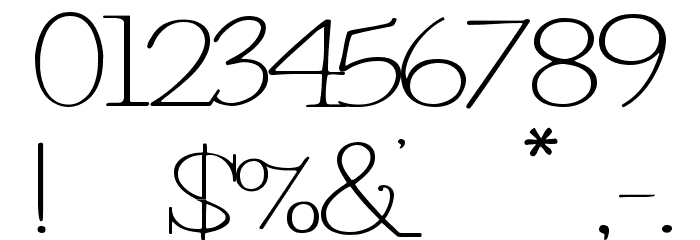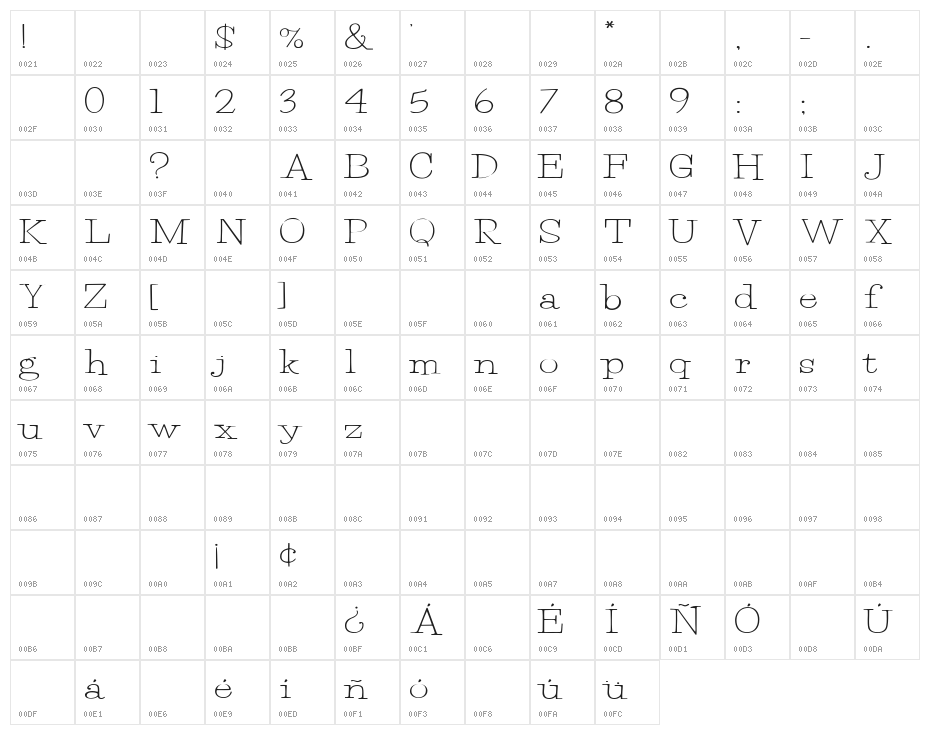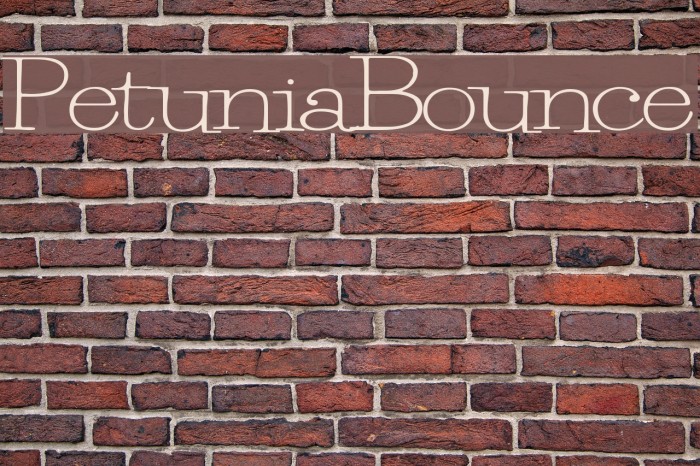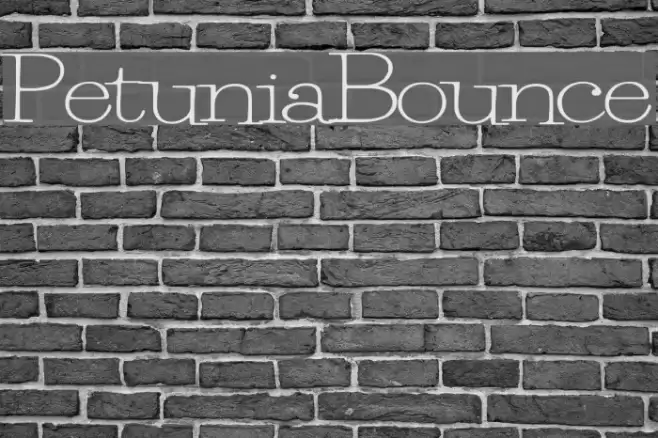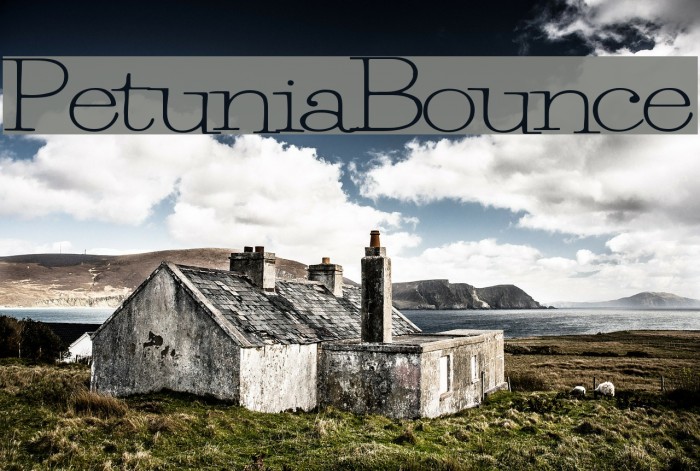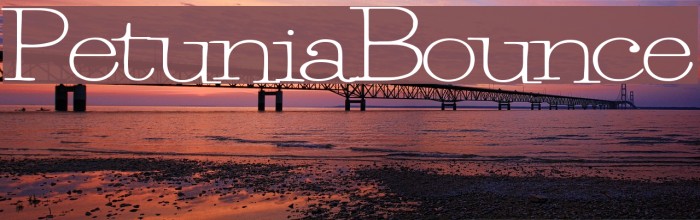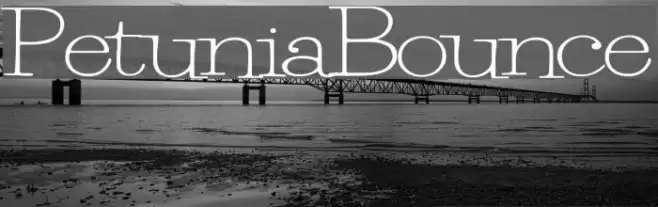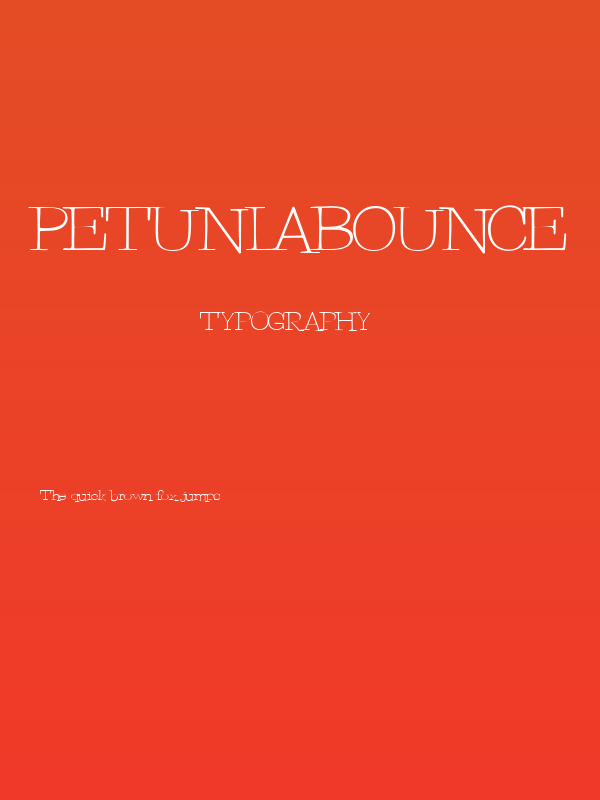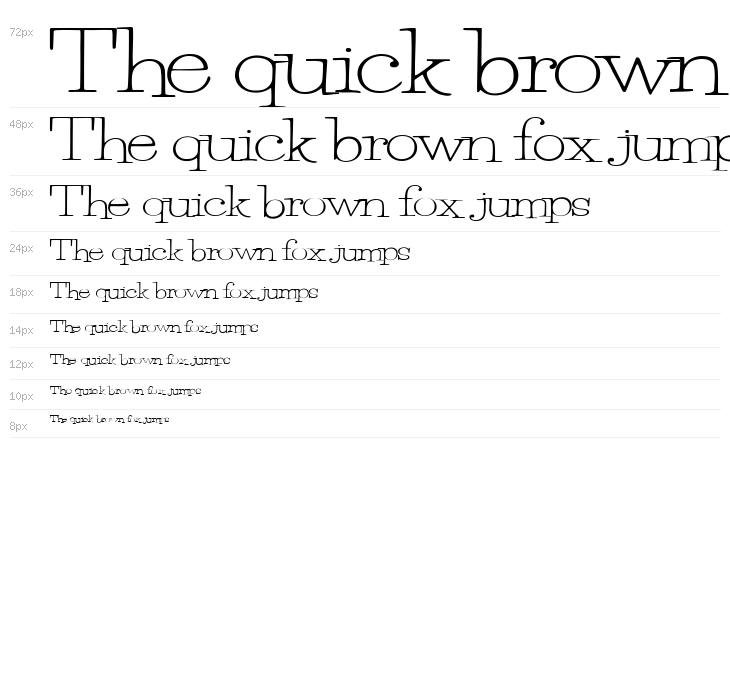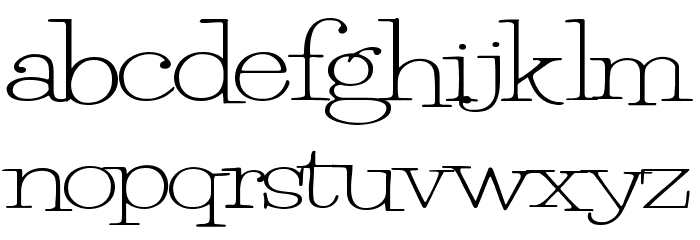
PetuniaBounce Font
PetuniaBounce Description
This font features a playful and whimsical design, characterized by its thin, elegant strokes and subtle curves. The uppercase letters are tall and slightly narrow, with distinct serifs that add a touch of sophistication. The lowercase letters maintain a consistent style, with rounded forms that enhance its friendly appearance. Numbers are well-proportioned, matching the overall aesthetic. Special characters are creatively designed, maintaining the font's unique personality. The font's overall style is both modern and decorative, making it suitable for various creative applications.